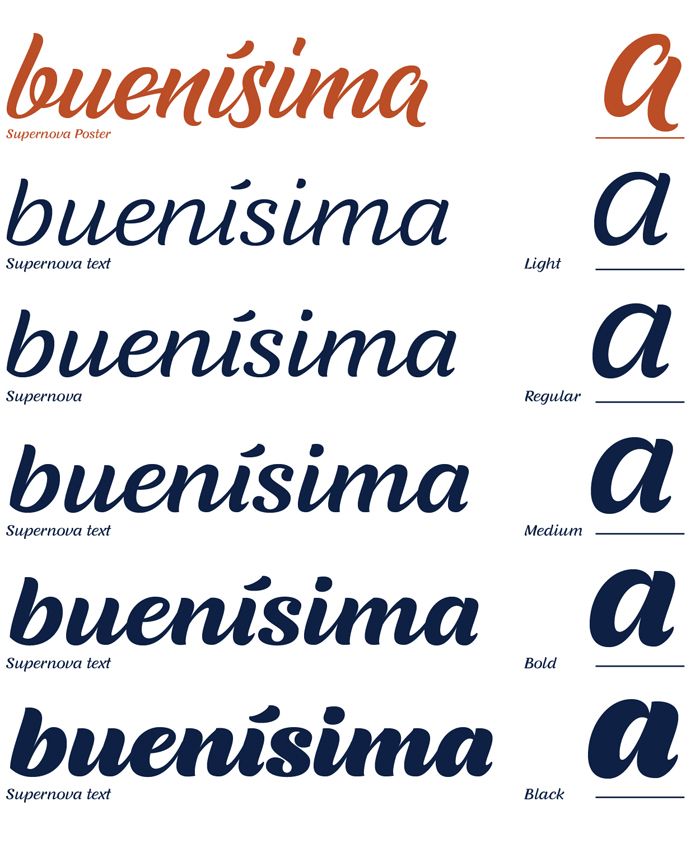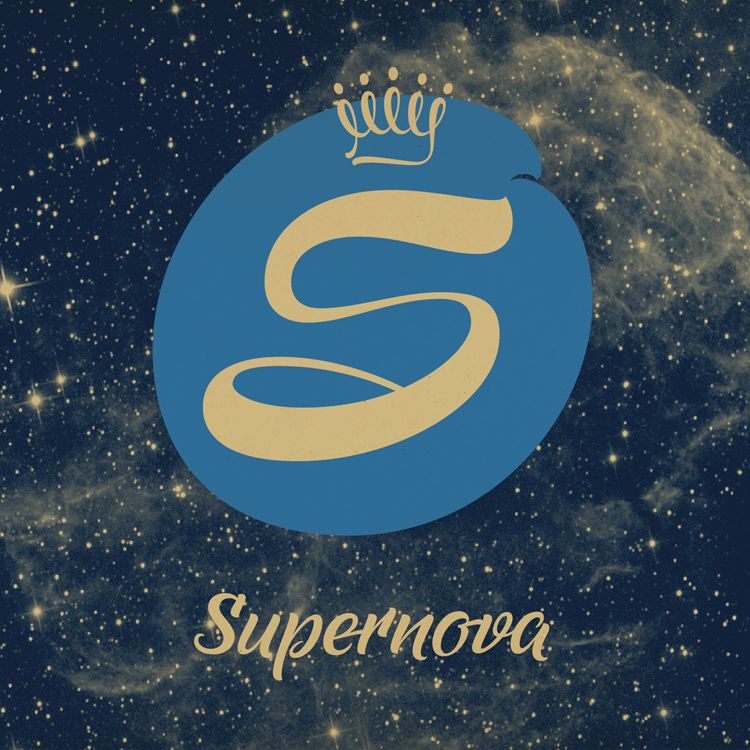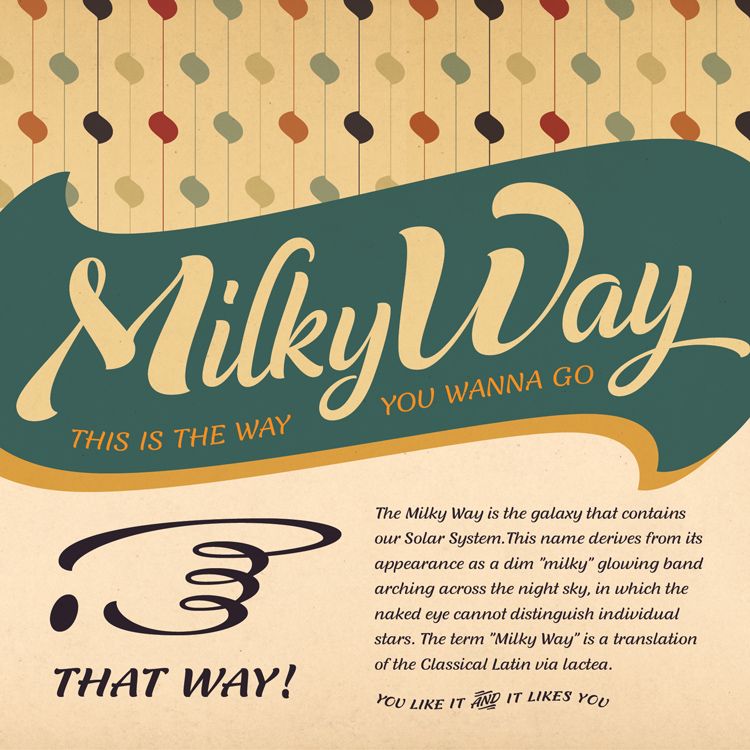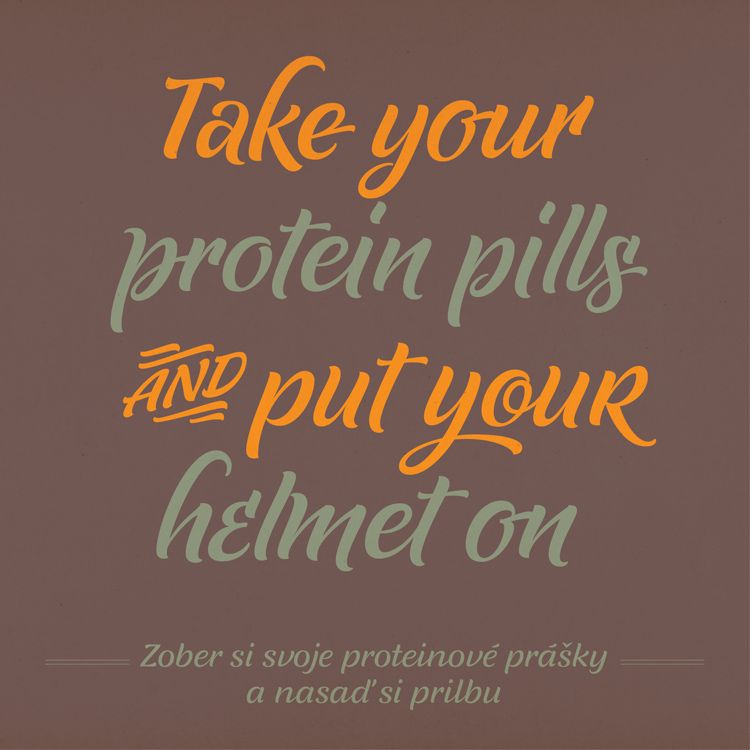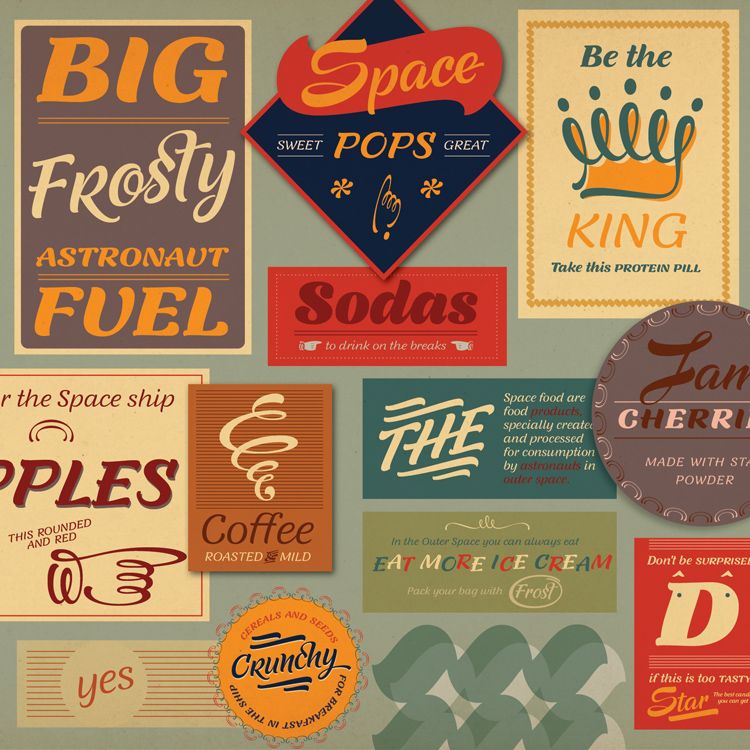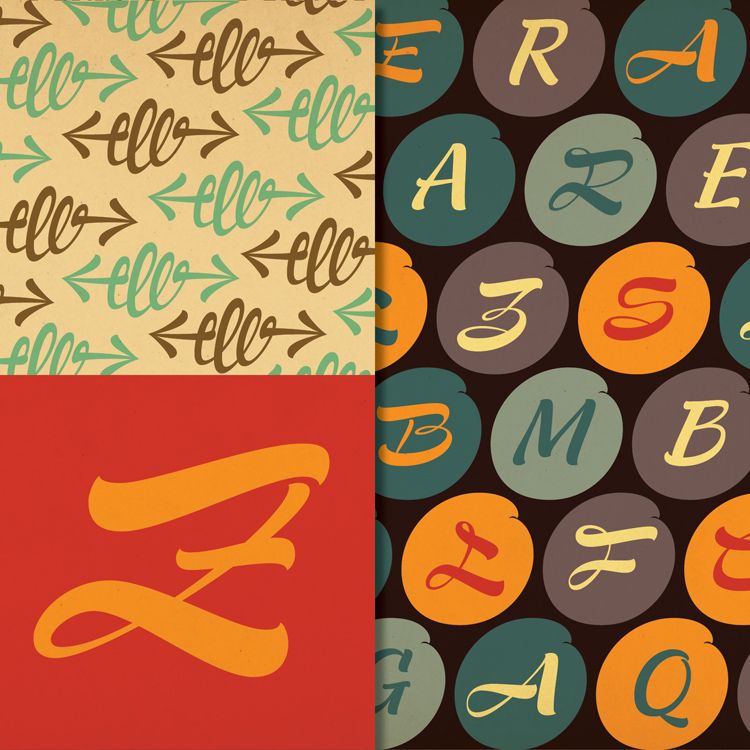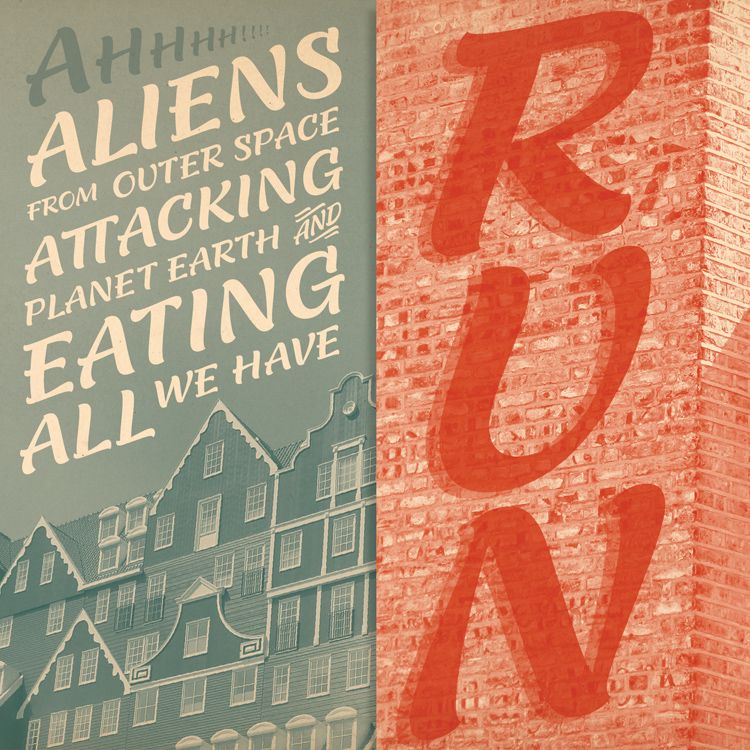
Supernova Typeface
oleh Martina Flor @martinaflor
Supernova is a family of scripts. The Poster version offers a typographic approach to lettering through expressive strokes, bold capitals, and an extensive collection of alternate characters. The text version is optimized for legibility at small sizes with five different weights. The family is complemented by decorative elements and flourishes. It is designed for use in packaging and signage.
Fonta yang indah. Saya sangat menyukai varian "poster", yang paling kaligrafis. Bisakah Anda menceritakan prosesnya? Apakah itu dibuat dari kertas atau langsung dari komputer?
Hai Alberto! Berawal dari kertas, berlatih kaligrafi dengan pena kuas. Setelah memahami cara kerja alat tersebut, saya menggambar setiap huruf. Kemudian, saya mendigitalkan sketsa saya dan mengolahnya dengan vektor.